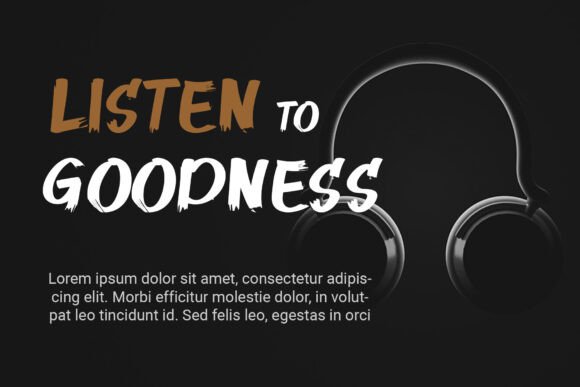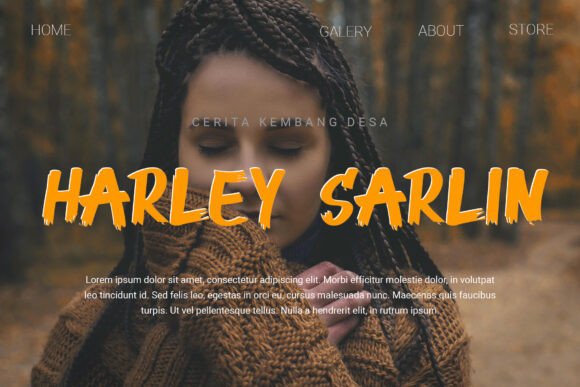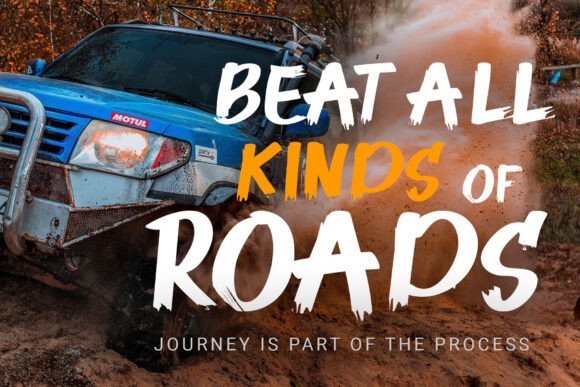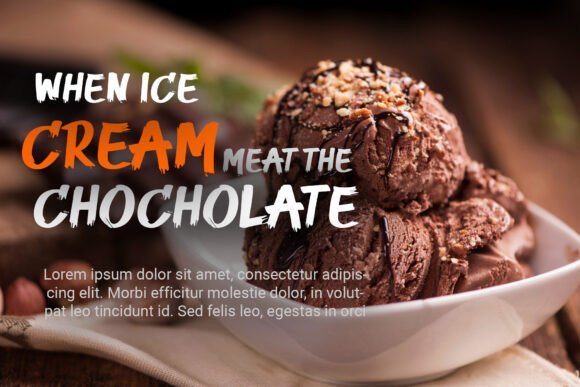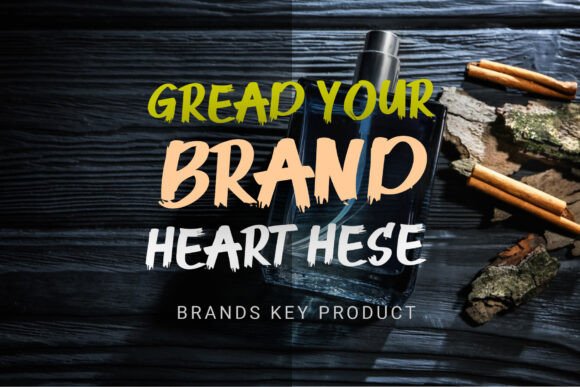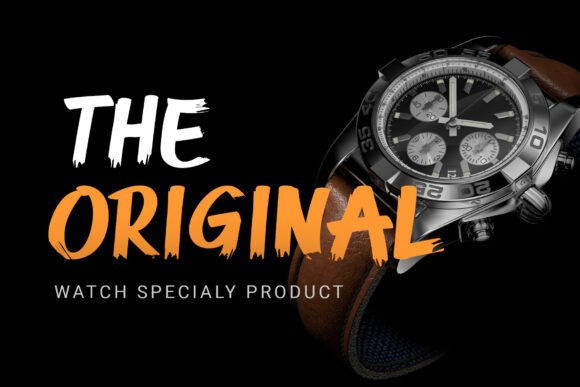
Introduction to Oke Brush Font
Have you ever stared at a blank canvas, searching for the perfect font to bring your creative vision to life? For designers, finding that elusive font can be a game-changer, elevating a project from meh to mesmerizing. And that’s exactly where the Oke Brush Font comes in – a beautifully crafted, handwritten font that’s sure to make your design project stand out.
With its unique, handmade characters, the Oke Brush Font is a treasure trove of creative possibilities. Whether you’re working on a logotype, title, or cover design, this high-quality font is the perfect choice for adding a touch of modern chic to your project. And the best part? It’s available for free download, making it an invaluable design resource for any creative endeavor.
From wedding designs to social media posts, the Oke Brush Font is a versatile tool that’s sure to bring a touch of elegance to any project. With its transparent background, you can easily layer it over images or use it as a standalone design element. Whether you’re a seasoned pro or just starting out, this font is a must-have in your design arsenal.
Key Features of Oke Brush Font
- Unique Hand-Drawn Design: Oke Brush Font offers a distinctive hand-drawn style that adds a personal touch to any creative project.
- High-Quality Graphics: This font is designed with high-quality graphics, making it perfect for use in various design resources.
- Transparent Background: The font features a transparent background, allowing for easy integration with other design elements.
- High Resolution: The font is designed at a high resolution of 300 DPI, making it suitable for use in large-scale designs and print materials.
- Perfect for Creative Projects: Oke Brush Font is an ideal design resource for creative projects, including logos, branding materials, and digital art.
Honest Review: Oke Brush Font
As a designer, I’m always on the lookout for high-quality design resources to elevate my creative projects. Recently, I stumbled upon the Oke Brush Font, and I’m excited to share my honest review with you.
What works well: ✨ The Oke Brush Font is incredibly versatile and comes in a range of styles, making it perfect for a variety of design projects. The font is also available for free download, which is a major plus. I love that it has a transparent background, allowing me to easily combine it with other design elements.
What doesn’t work so well: ⚠️ While the font is beautiful, it can be a bit tricky to work with, especially when it comes to scaling. I’ve found that it can become pixelated if not used carefully. Additionally, the font family is relatively small, so it may not be suitable for large-scale projects.
Overall impression: I’m really impressed with the Oke Brush Font, and I think it’s a fantastic addition to any designer’s toolkit. While it has its limitations, the benefits far outweigh the drawbacks. If you’re looking for a unique, high-quality font for your next creative project, I highly recommend giving it a try.
- Transparent background for easy combination with other design elements
- Available in a range of styles
- Can be tricky to work with when scaling
- May become pixelated if not used carefully
- Font family is relatively small
Oke Brush Font
Tips for Getting the Most Out of Oke Brush Font
To get the most out of the Oke Brush Font, consider the following:
- Use it on a transparent background for a clean and minimalist look.
- Combine the Oke Brush Font with other design elements for a unique and eye-catching design.
The Oke Brush Font is ideal for:
- Graphic design and visual identity projects.
- Social media posts and advertising materials.
- Branding and marketing materials.